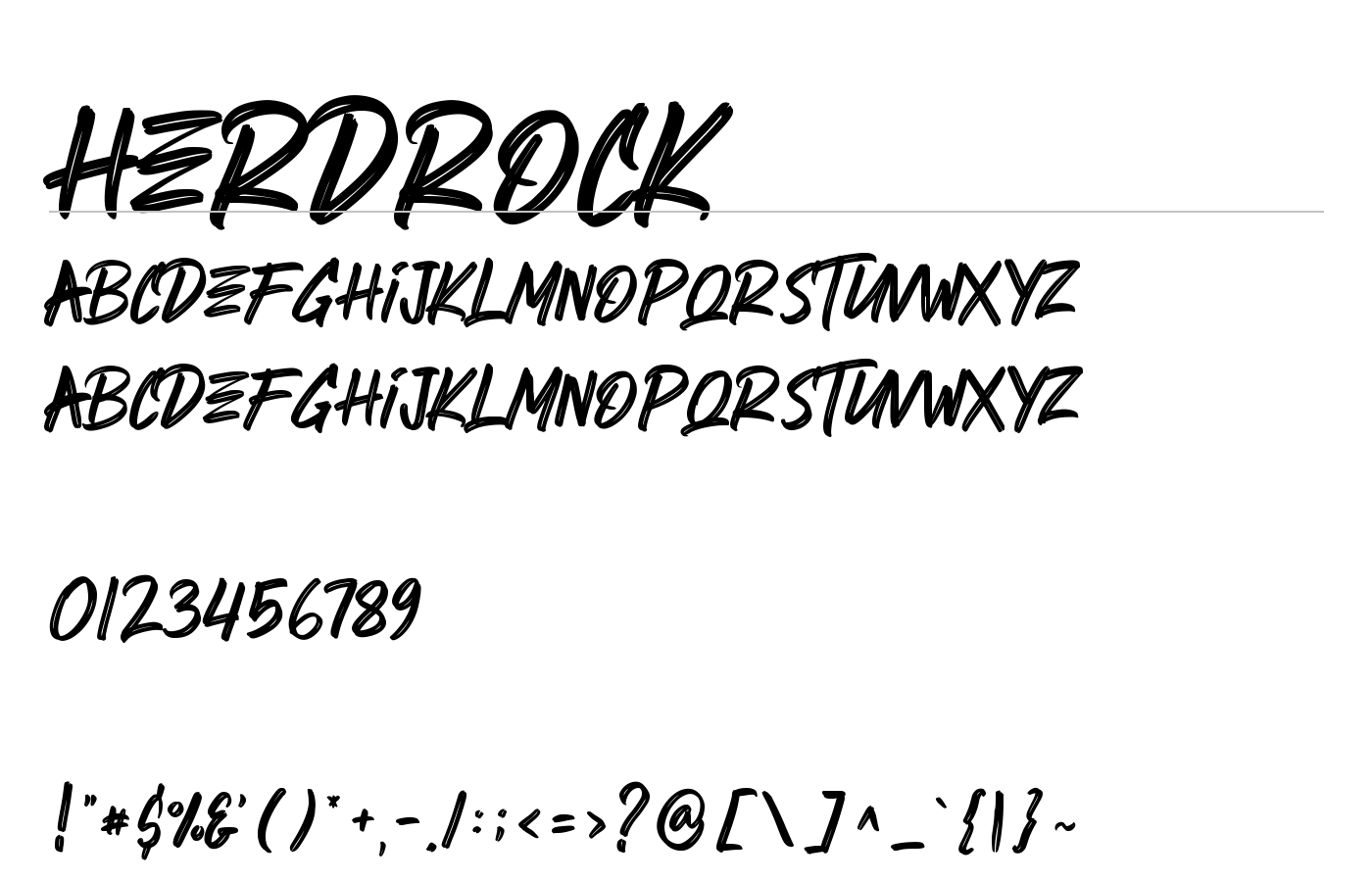
Herdrock is an energetic brush script font featuring bold, textured strokes that give it a lively and handcrafted feel. Its slightly slanted, casual style with varied stroke thicknesses makes it perfect for projects seeking a dynamic, creative, and authentic appearance. This font works well for logos, headlines, packaging, and any design that benefits from a personal, artistic touch.
Herdrock – Brush Font
About Herdrock – Brush Font